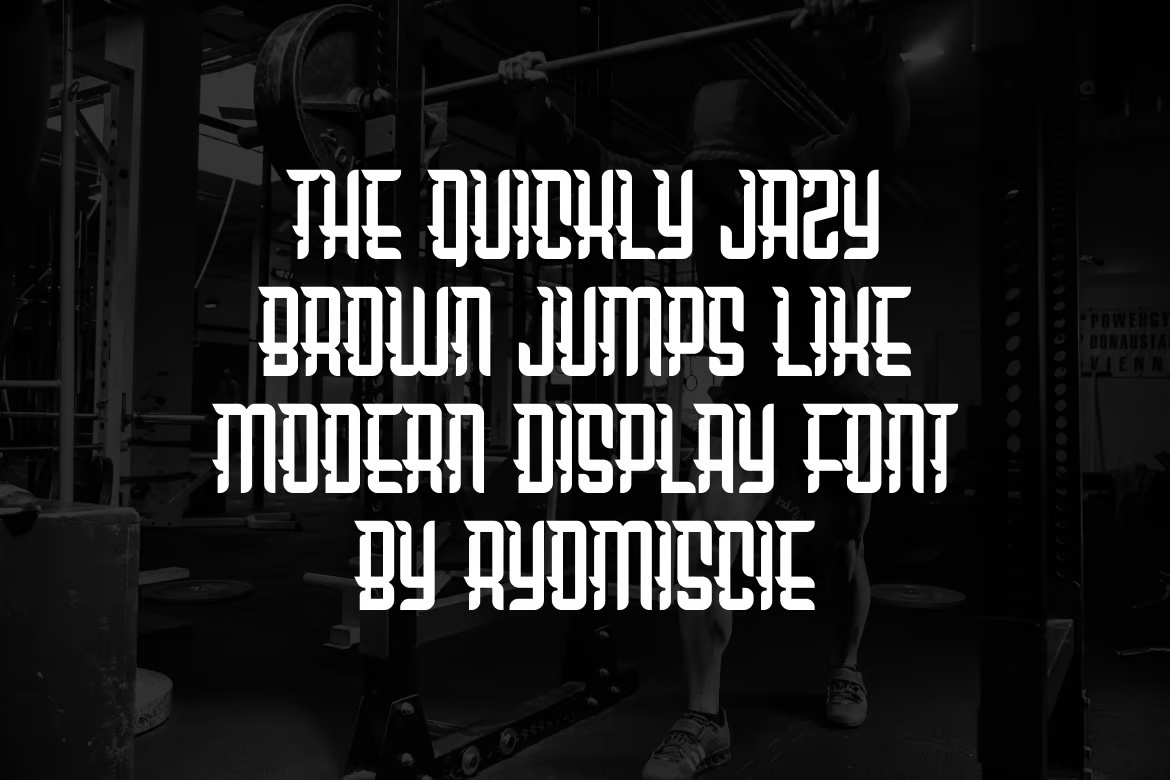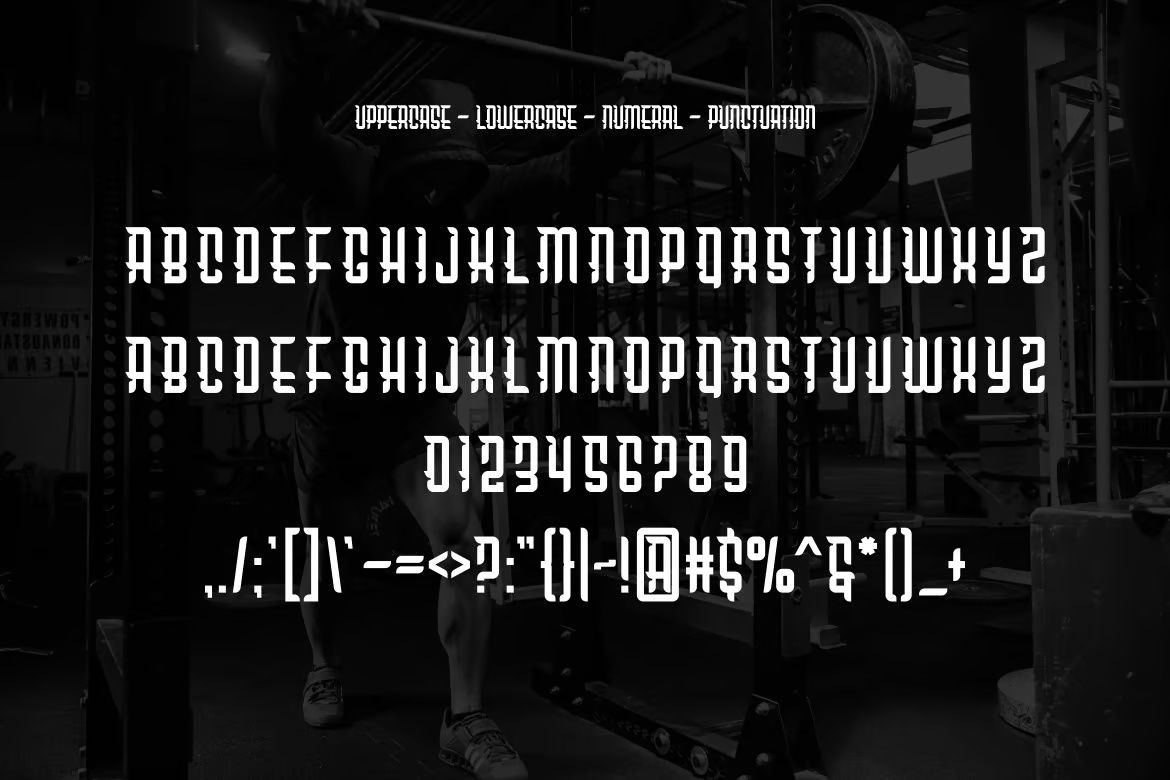
Agregad is narrow and blocky with sharp corners. Each letter has thin horizontal lines cut into it, which gives it a slightly stencilled, mechanical look. The specimen shows it in white over a dark gym photo, and the pangram even ends with “by Ryomiscie”.
There are two sets of capitals, figures and basic punctuation, so it works as an all-caps font. It is strong in short lines and logos. Big blocks of text get busy because of the cut lines. The download includes TTF and OTF files.
Best uses for Agregad
- Gym and fitness branding
- Esports logos
- T-shirt prints
- Action film posters
- Album covers
Pair Agregad with a solid sans like Roboto Condensed or Barlow for supporting text.
Agregad Modern Sans Serif Display Font